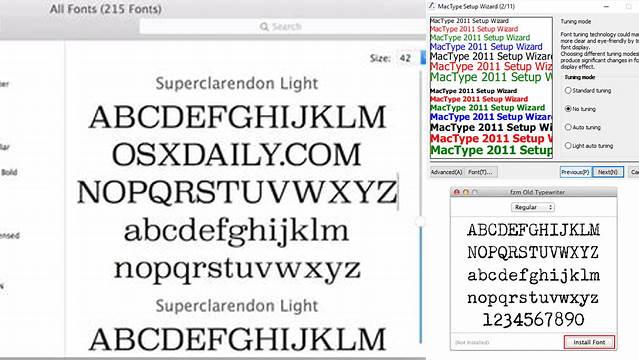
System Font Guide: Windows And Mac
Navigating the digital landscape, you'll frequently encounter the need to identify and utilize system fonts. These fonts, pre-installed on your operating system, form the backbone of your visual communication, appearing in everything from documents and presentations to website designs and software interfaces. This comprehensive guide provides an exhaustive list of system fonts for both Windows and Mac operating systems. We'll delve into their characteristics, usage, and how they contribute to the overall aesthetic of your projects. Whether you're a seasoned designer, a curious student, or simply someone looking to enhance their digital experience, understanding system fonts is key. Let's dive in, guys!
Windows System Fonts: A Detailed Overview
Windows boasts a rich and diverse collection of system fonts, each designed with specific purposes and aesthetics in mind. These fonts are meticulously crafted to ensure optimal readability across various screen resolutions and text sizes, making them an essential component of the Windows user experience. Many of these fonts are also available in a range of weights and styles, providing versatility for both casual use and professional design. Understanding the nuances of these fonts is crucial for anyone working with Windows-based applications or creating content intended for Windows users. This exploration will cover some of the most common and important fonts, giving you a solid foundation for your font-related endeavors.
Let's start with Arial. Arial, one of the most widely used system fonts on Windows, is a sans-serif typeface known for its clean and modern appearance. Its clear and straightforward design makes it ideal for both body text and headlines. Arial is available in a variety of weights, including regular, bold, italic, and bold italic, offering flexibility in your designs. It's a workhorse font, you know? Often used for documents, presentations, and website elements, Arial provides excellent readability across various screen sizes. Its widespread availability ensures that your documents will look consistent across different Windows systems. Next is Calibri. This sans-serif font is the default font in Microsoft Office applications. Designed with a slight roundness, it offers a friendly and approachable feel. Calibri is designed to be highly readable on screen and in print, making it a great choice for emails, reports, and presentations. It's a modern and versatile font suitable for a wide range of applications. Times New Roman is a classic serif typeface, characterized by its serifs, those small strokes at the end of each letter. It's a traditional font, often associated with formal documents and print media. Its serifs aid in readability in long blocks of text, making it suitable for books, articles, and reports. Times New Roman is a reliable choice for conveying a sense of professionalism and tradition. Verdana is another popular sans-serif font on Windows, specially designed for readability on screen. Its wider letterforms and generous spacing make it easy to read, even at small sizes. Verdana is often used for website content and user interfaces, where clarity and legibility are paramount. Also Consolas, This monospaced font is designed primarily for coding, with each character taking up the same horizontal space. It allows for easy alignment of code, making it a favorite among programmers and developers. Consolas is excellent for viewing and editing code in various programming languages. Georgia is a serif typeface, similar to Times New Roman, but designed specifically for screen display. It is well known for its excellent readability, making it a good option for body text on websites and in documents. Georgia's robust serifs and slightly thicker strokes make it appear clear even at smaller sizes. Lastly, we have Segoe UI. This sans-serif font is the system font for Windows. It offers a clean and modern design that is used throughout the operating system, from the Start menu to system settings. Segoe UI is optimized for screen display, and its modern aesthetic fits well with Windows' overall design. Pretty cool, right?
The Functionality of Windows System Fonts
System fonts on Windows are far more than just pretty faces; they're essential components that serve a variety of crucial functions. They contribute directly to the user experience by ensuring that text is easily readable across various applications and screen sizes. Windows system fonts are designed to render properly and consistently, no matter where they appear, be it within a document, a website, or even the operating system interface.
These fonts play a key role in conveying brand identity. By incorporating specific system fonts in marketing materials and brand content, organizations can establish a visual style that resonates with their target audience. Also, system fonts influence accessibility. Fonts designed with optimal readability features cater to people with visual impairments. Ensuring clear text presentation is essential for creating an inclusive digital environment. Finally, system fonts also offer versatility. These fonts appear in various weights, styles, and sizes to accommodate a range of design needs. The adaptability of the system font enables users to tailor the visual appearance of their content to suit different contexts. Pretty nifty, right? So next time you open a document, take a second to appreciate the importance of the font you're using. It's doing more than just displaying words; it's an essential component of your digital world.
How Windows System Fonts Influence User Interface
Windows system fonts are integral to the user interface (UI) by setting the tone for the user experience. These fonts affect the perception and usability of the operating system, contributing significantly to how users interact with their computers. A well-chosen system font provides clear text, which aids in navigation and comprehension. Microsoft has meticulously selected fonts such as Segoe UI to enhance the readability of menus, buttons, and text fields across the Windows interface. This thoughtful design ensures that users can easily read the information and perform actions without visual strain. Consistency across the UI is paramount; the consistent use of system fonts creates a cohesive and familiar look and feel. This uniformity helps users navigate and reduces the cognitive load associated with learning new interfaces. Windows also incorporates system fonts to convey the brand's identity. The selection of a specific font style can subtly communicate the company's personality and values. For instance, the use of a modern sans-serif font conveys an impression of modernity and technical prowess. System fonts affect accessibility. Fonts are carefully chosen to enhance readability for users with visual impairments. Legibility is a major factor, so Windows provides font choices that are clear at various sizes and under diverse display conditions. Ultimately, Windows system fonts are not just aesthetic choices; they're fundamental to the functionality and appeal of the operating system. These fonts shape how users interact with their computers and play a pivotal role in creating an engaging and accessible digital environment.
Mac System Fonts: A Detailed Overview
Mac offers a curated selection of system fonts known for their elegance, clarity, and compatibility with the macOS interface. These fonts contribute significantly to the visual appeal of Mac applications and documents, making them essential for anyone working in the Apple ecosystem. Let's take a deep dive and get to know some of these fonts and their characteristics, shall we?
Let's get to know a few of them. Helvetica Neue, is a widely recognized sans-serif font known for its clean and neutral appearance. It is a favorite choice for user interfaces, logos, and body text due to its excellent readability and timeless design. San Francisco, is the system font used in macOS and iOS. This sans-serif font has been optimized for readability across all Apple devices, ensuring a consistent and user-friendly experience. It's a versatile choice for a range of applications. Times Roman (also known as Times) is a serif font that brings with it a sense of traditional elegance, similar to its Windows counterpart. Its serifs and slightly heavier strokes make it a good choice for long-form text and print media, enhancing readability. Courier is a monospaced font that is frequently used for coding and displaying text in a uniform manner, which allows easy character alignment. It is a great choice for programmers and technical writers. Geneva is a sans-serif font, commonly used in macOS applications. It's a clean font suitable for UI elements and casual reading. Its design and style make it versatile for different uses. Monaco is another monospaced font, often used for code and terminal displays. Its clear and distinct letterforms provide clarity and visual consistency, enhancing the readability of code. Didot, a fashionable and elegant serif font, is often found in marketing materials and publications. Its stylish design makes it ideal for display text, adding a touch of sophistication to designs. Arial is a sans-serif font similar to the one on Windows, offering high readability for documents and general applications. Its widespread availability guarantees your documents appear the same on any platform. Pretty cool, right?
The Functional Roles of Mac System Fonts
Mac system fonts are not only about visual aesthetics; they play a critical role in the functionality of macOS, affecting user experience, accessibility, and overall system performance. These carefully selected fonts are designed to ensure that text is clear and readable across a variety of applications, screen resolutions, and text sizes. They contribute to a consistent user interface, making navigation easier and improving the overall usability of the operating system. Mac system fonts provide optimal legibility, which benefits users with visual impairments by offering clear and discernible text. This is achieved through the selection of fonts with carefully crafted letterforms, spacing, and weight, helping make the digital environment more inclusive. Moreover, the use of system fonts enhances the overall performance of macOS. Because these fonts are integrated into the operating system, they are optimized for quick rendering and reduced memory consumption, leading to a faster and more efficient user experience. The presence of the system fonts affects branding by helping establish a distinct visual style, which enhances the brand's recognition and recall. The consistent application of these fonts in various applications, marketing materials, and the overall user interface helps create a cohesive brand identity. The flexibility of the system fonts enables developers and designers to adapt the visual presentation of their content to different contexts. They appear in different weights, styles, and sizes to accommodate different design needs. These fonts help create a smooth, efficient, and accessible digital experience for all users, enhancing the functionality of the operating system. Gotta love it, am I right?
The Influence of Mac System Fonts on User Experience
Mac system fonts are a cornerstone of the user experience (UX) on macOS, profoundly influencing how users interact with their devices. By enhancing readability, consistency, and aesthetic appeal, these fonts play a vital role in shaping a positive user experience across all Mac applications.
First of all, readability is a top priority. Mac system fonts are selected for their superior legibility across a range of screen sizes and resolutions. This clarity is essential for minimizing eye strain and making information easily accessible. The font design optimizes the viewing experience, so users can quickly scan information and understand content more easily. Consistency is essential. By using system fonts, macOS ensures that the same fonts are used throughout the interface, creating a familiar and coherent user experience. This uniformity in design streamlines navigation, minimizing cognitive effort, and making users feel more comfortable with their devices. Aesthetic appeal improves engagement. Well-designed system fonts add to the overall visual appeal of macOS, improving user engagement and satisfaction. Clean, modern fonts help create an appealing aesthetic, making the operating system more enjoyable. Moreover, Mac system fonts affect accessibility. Apple has made a huge effort to ensure its system fonts are available in a variety of styles and weights and are legible for people with visual impairments. Users can personalize their experience by adjusting font sizes and styles to fit their needs, which supports inclusion. Overall, Mac system fonts play a key role in building a positive and effective UX. From legibility and consistency to aesthetic appeal and accessibility, these fonts are an essential component in the Mac operating system. They work to create an intuitive and engaging user environment, ensuring users feel comfortable and empowered when using their devices.
How to Identify System Fonts
Identifying system fonts is a crucial skill for designers, developers, and anyone who works with digital content. Knowing how to recognize the system fonts used on both Windows and Mac allows you to maintain consistency in your designs, reproduce the appearance of existing interfaces, and understand the foundations of visual communication. Here's a breakdown of how to identify system fonts across both operating systems.